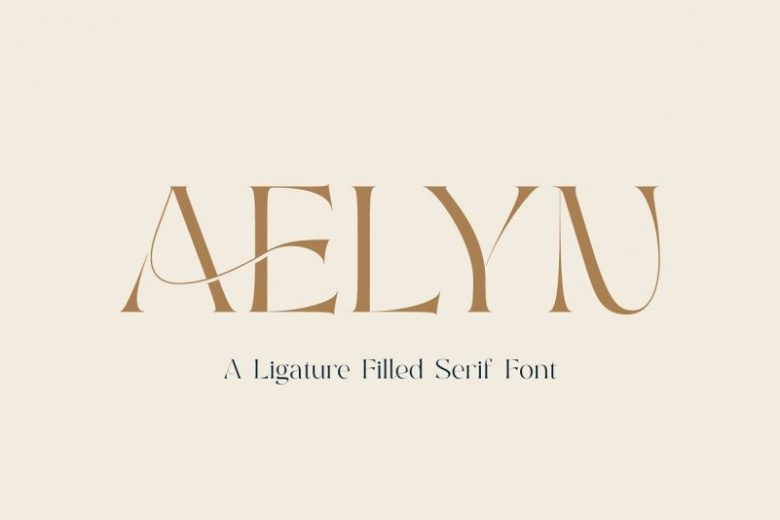
Aelyn Font
Aelyn Serif Font is a versatile, feminine, and elegant font manufactured by Surplus Type Co. It has a unique style with stylistic, alternates, ligatures, and supports multilingual languages. This font features a huge selection of ligatures in both upper and lowercase characters. Aelyn is perfect for luxury brands, elegant web designs, premium stationery & much more.